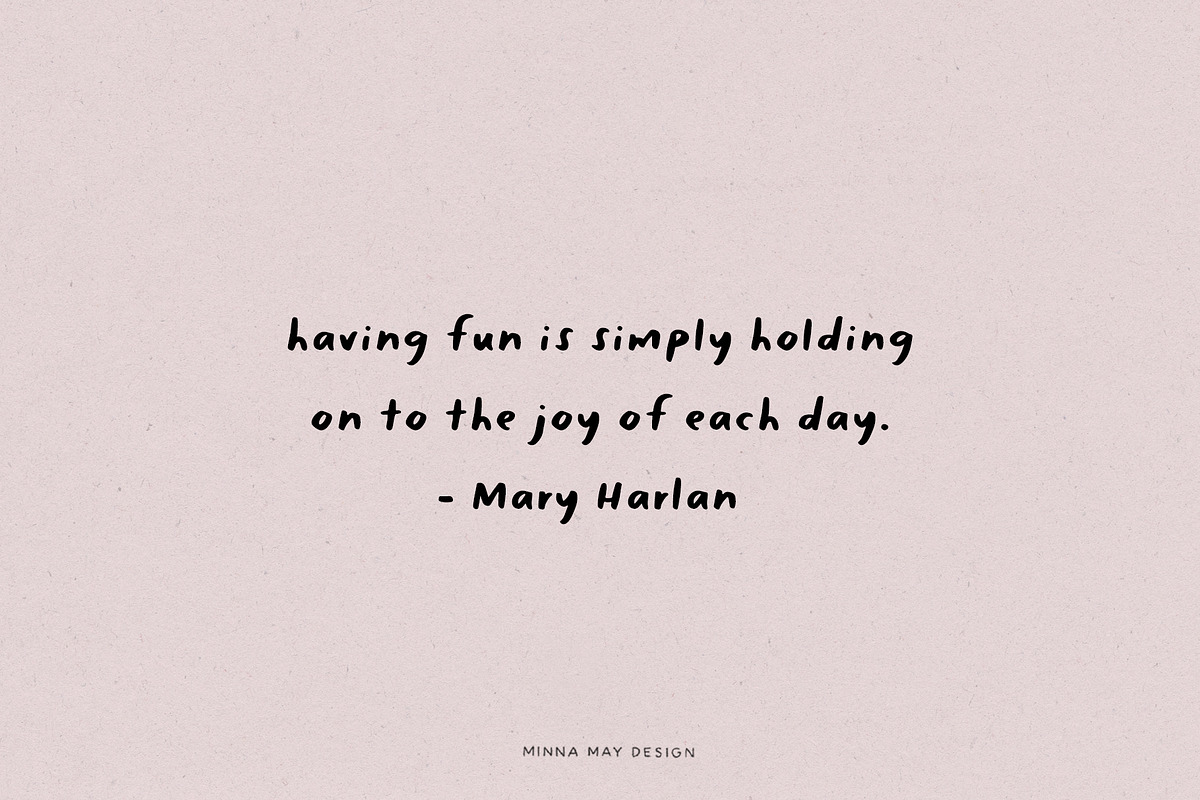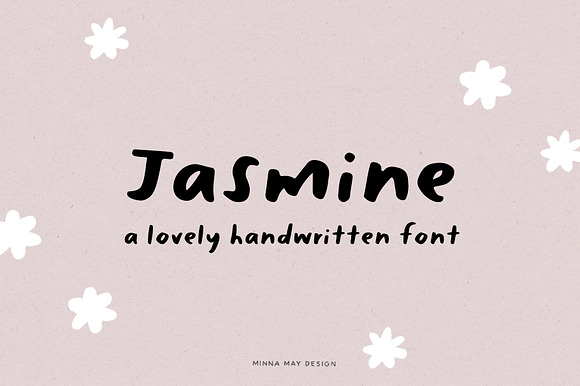
Jasmine - Handwritten Font
JASMINE - a soft bubbly handwritten typeface based on my own personal handwriting! Its hand drawn style provides an imperfect look, great to add a handmade touch to your projects. Use for logos, quotes, invitations, blog posts, business cards, presentations and more!
• Uppercase & Lowercase
• Numbers & Punctuation